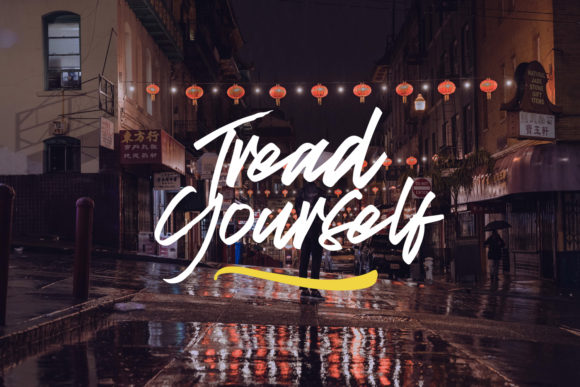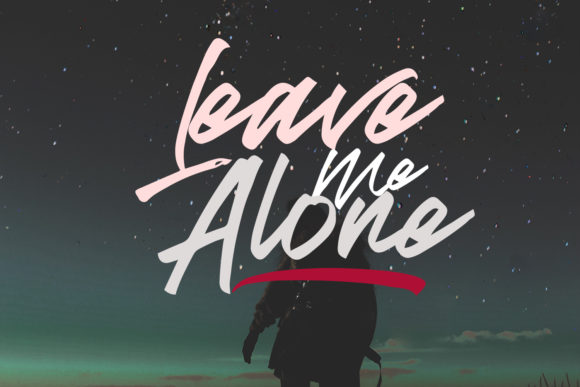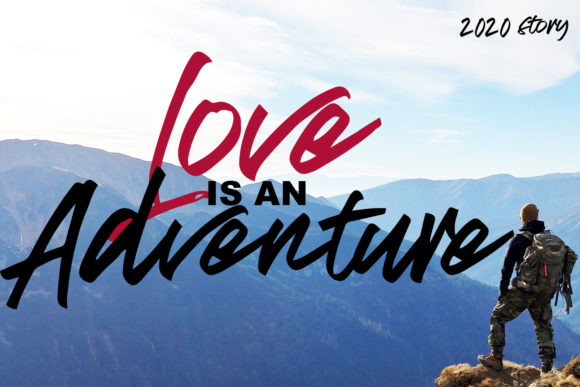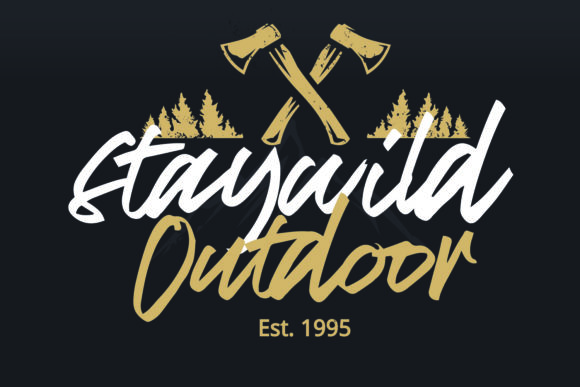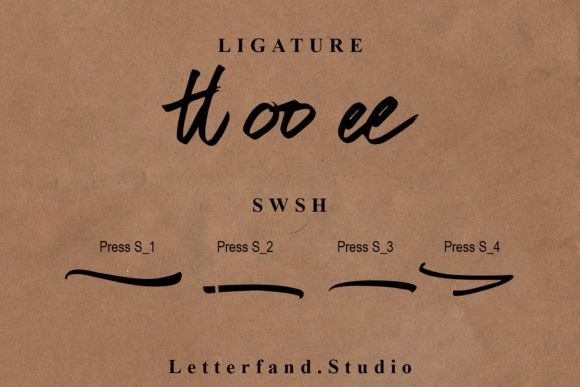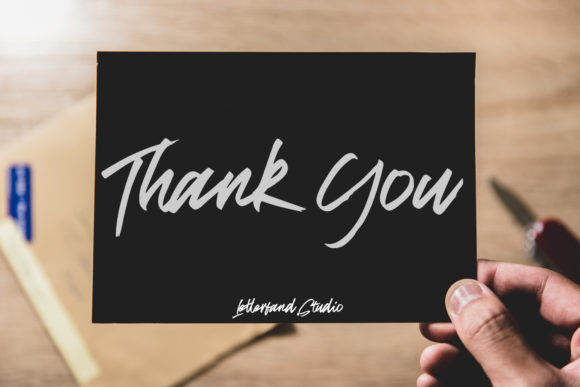
Discover the Timeless Elegance of Break Dust Font
Have you ever been stuck in front of your computer, staring at a blank page, desperately searching for the perfect font to bring your project to life? It’s a moment we’ve all been through, and it’s precisely this moment of creative frustration that makes the discovery of a new, exceptional font all the more thrilling.
Meet Break Dust Font, a masterfully designed handwritten font that effortlessly combines classic calligraphic influences with a fresh, contemporary twist. This exquisite font is sure to become a true favorite among designers, and for good reason – its unique blend of elegance and modernity makes it the perfect addition to any project.
Whether you’re working on a high-end branding project or a personal blog, Break Dust Font is a valuable asset that’s sure to elevate your designs to the next level. So why settle for an ordinary font when you can break the dust and unleash your creativity with this stunning new addition to your design arsenal?
- Unique Characteristics: The font features a distressed, vintage aesthetic with a mix of rough and smooth textures, giving it a unique and eye-catching appearance.
Break Dust Font Review
Overall, I think the Break Dust Font is an interesting choice for designers looking to add some edge to their projects. Here’s what I think works well:
- ✨ The font’s bold and distressed texture is perfect for creating a gritty, urban vibe in logos, headlines, or even entire branding systems.
- ✨ The font’s versatility in both digital and print formats makes it a great option for designers who work in multiple mediums.
- ✨ The font’s modern aesthetic is perfect for designers who want to create a sleek, contemporary look without sacrificing character.
However, I do have some concerns:
- ⚠️ The font’s distressed texture can sometimes make it difficult to read, especially in smaller font sizes or when used for large blocks of text.
- ⚠️ The font’s modern aesthetic can sometimes feel overused or clichéd, which may not be suitable for designers who want to stand out from the crowd.
- ⚠️ The font’s bold lines can sometimes make it feel less flexible or adaptable to different design styles.
Overall, I think the Break Dust Font is a solid choice for designers who want to add some edge to their projects. While it has some limitations, its unique texture and modern aesthetic make it a great option for those who want to create a bold, contemporary look.
The Break Dust Font is ideal for:
- Creating a distressed or vintage look in your designs.
- Adding texture and depth to your text elements.
- Creating a unique and eye-catching visual identity for your brand.
Alternatives to Break Dust Font
Arial Black is a sans-serif font known for its bold and modern look. It is ideal for use in headings and titles where you want to draw attention. It is similar to Break Dust Font in its boldness, but it has a more straightforward and less distressed look.
Impact is a sans-serif font designed to be highly legible at small font sizes. It is a good choice for use in headings and titles where you want to convey a sense of urgency or importance. Compared to Break Dust Font, Impact is more condensed and has a more aggressive look.
3. Rockwell
Rockwell is a serif font that is known for its classic and elegant look. It is a good choice for use in body text where you want to create a sense of sophistication and professionalism. Unlike Break Dust Font, Rockwell is more traditional and less distressed in its design.
The recommended font size for Break Dust Font is between 12-24 points, depending on the intended use and design application. For optimal readability, we recommend a line height of at least 1.2-1.5 times the font size.